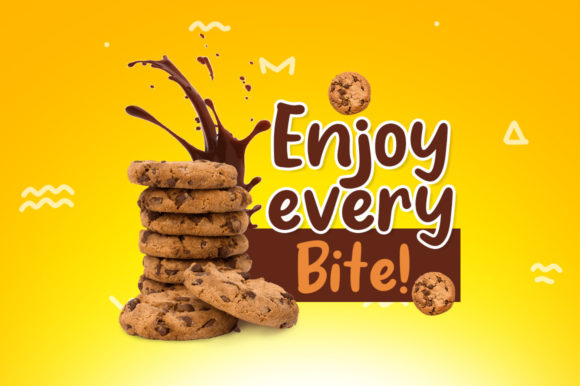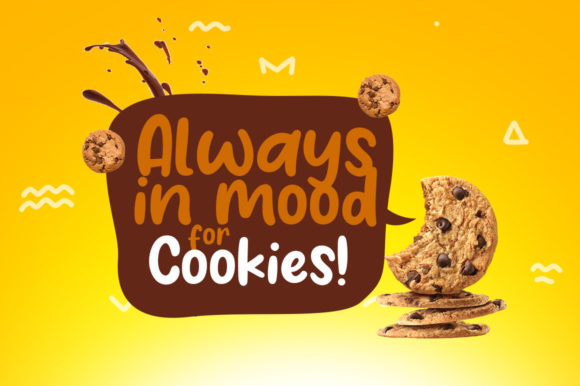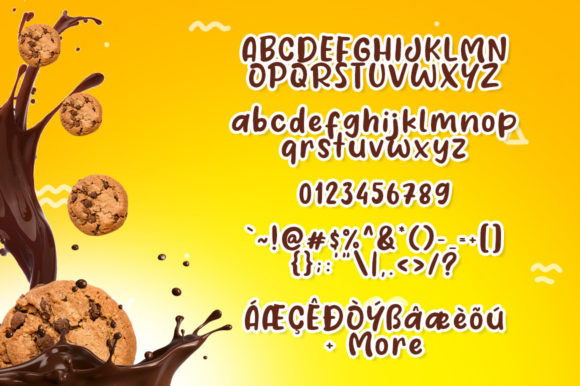
Crispy Cookies Font: The Sweetest Addition to Your Design Collection
Are you on the hunt for a fun and cool display font that adds a touch of whimsy to your designs? Look no further than Crispy Cookies, a delightful font that’s perfect for cartoon-related designs, children’s games, and any project that requires a lovely, playful vibe. In this article, we’ll dive into the world of Crispy Cookies and explore what makes it an amazing choice for designers and crafters alike.
The Charm of Crispy Cookies
Crispy Cookies is a display font that’s sure to capture the hearts of designers and crafters with its unique, hand-drawn charm. The font’s playful and carefree aesthetic makes it an excellent choice for projects that require a lighthearted, fun approach. Whether you’re designing a logo, creating a children’s book, or crafting a social media post, Crispy Cookies is the perfect companion to bring your ideas to life.
What Makes Crispy Cookies Special?
So, what sets Crispy Cookies apart from other fonts? Here are a few reasons why this font stands out:
- Unique Character Set: Crispy Cookies boasts a distinctive character set that’s full of personality. Each letter is carefully crafted to bring a smile to your face, making it perfect for designs that require a touch of whimsy.
- Playful Aesthetic: The font’s playful aesthetic is perfect for designs that require a fun, lighthearted approach. From children’s games to cartoon-related designs, Crispy Cookies is sure to bring a sense of joy to your projects.
Crispy Cookies is a versatile font that’s perfect for a wide range of design applications. Here are a few ways designers and crafters can use this delightful font:
- Children’s Book Illustrations: Add a touch of magic to your children’s book illustrations with Crispy Cookies. The font’s playful aesthetic is sure to delight young readers and bring your stories to life.
- Cartoon-Related Designs: Whether you’re designing a logo, character, or animation, Crispy Cookies is the perfect font to add a touch of whimsy to your cartoon-related designs.
- Social Media Graphics: Bring a smile to your followers’ faces with Crispy Cookies. The font’s playful aesthetic is perfect for social media graphics, from Facebook posts to Instagram stories.
- Crafting Projects: Add a personal touch to your crafting projects with Crispy Cookies. From handmade cards to DIY decorations, this font is sure to bring a touch of personality to your creations.
Tips for Using Crispy Cookies
To get the most out of Crispy Cookies, here are a few tips to keep in mind:
- Experiment with Colors: Crispy Cookies looks amazing in a variety of colors. Experiment with different hues to find the perfect combination for your design.
- Mix and Match: Don’t be afraid to mix and match Crispy Cookies with other fonts. The font’s playful aesthetic pairs well with a range of font styles, from bold and chunky to delicate and cursive.
- Play with Size: Crispy Cookies looks amazing in a range of sizes. Experiment with different font sizes to add visual interest to your designs.
In conclusion, Crispy Cookies is a fun and cool display font that’s perfect for designers and crafters looking to add a touch of whimsy to their projects. With its unique character set, playful aesthetic, and ease of use, this font is sure to become a favorite in your design collection. So why wait? Fall in love with Crispy Cookies and bring your projects to the highest levels!